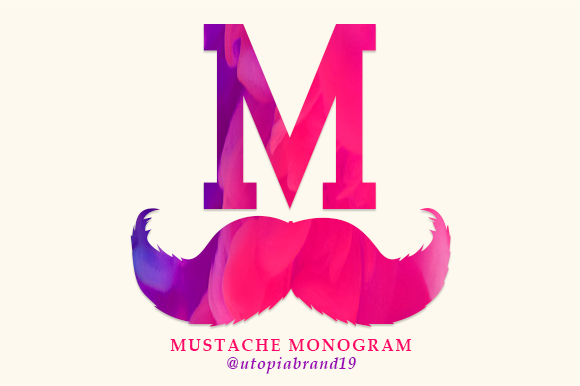
Dive into a world of whimsy and charm with Mustache Monogram, a captivating decorative font that oozes personality. Its playful mustache motifs ignite a sense of nostalgia, evoking memories of vintage carnivals and lighthearted adventures. Unleash your inner artist and let your imagination run wild as you craft captivating designs that are sure to turn heads and spark smiles.
With Mustache Monogram, the possibilities are limitless. Create eye-catching logos that exude a playful charm, perfect for businesses looking to stand out from the crowd. Design delightful invitations and greeting cards that bring warmth and joy to any occasion. Add a touch of whimsy to your social media posts and marketing materials, captivating your audience with unique and memorable visuals.
Step into a realm where creativity knows no bounds. Let Mustache Monogram inspire you to create stunning artwork, posters, and flyers that capture the attention of all who see them. Design personalized mugs, t-shirts, and tote bags that showcase your unique style and personality. With Mustache Monogram, every project becomes an opportunity to express your creativity and spread happiness.
With its versatility and charm, Mustache Monogram is the perfect font for adding a touch of fun and whimsy to any design project. Its playful mustache motifs add a unique twist to logos, branding, and packaging, making your products stand out on shelves and online marketplaces. Create captivating social media posts, website headers, and email campaigns that instantly grab attention and leave a lasting impression.
Embrace the playful spirit of Mustache Monogram and let your designs ignite joy and laughter. Download it today and embark on a creative journey filled with endless possibilities. Experience the magic of this enchanting font and see your designs come to life with a touch of whimsy and charm.